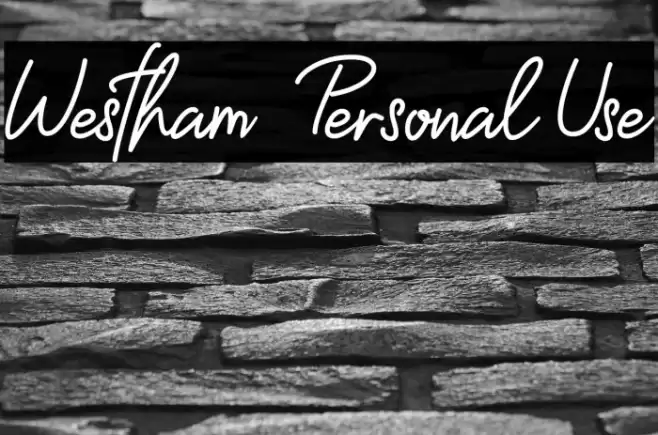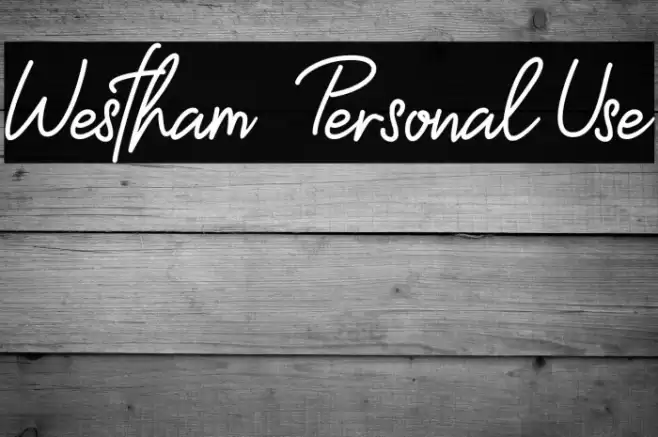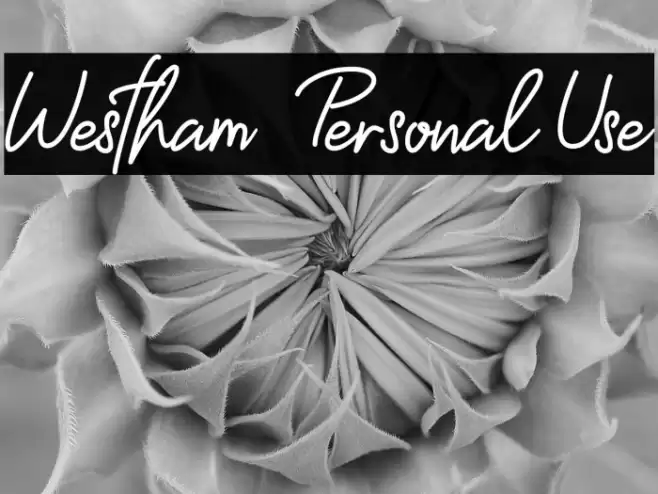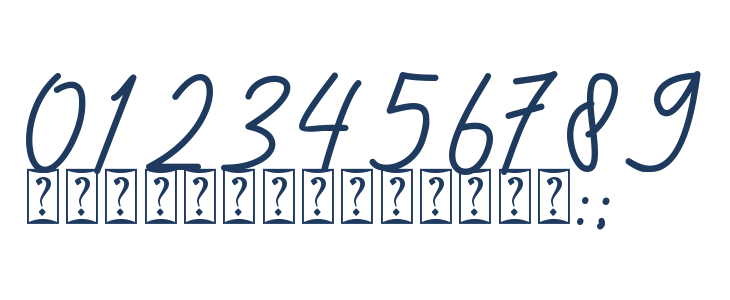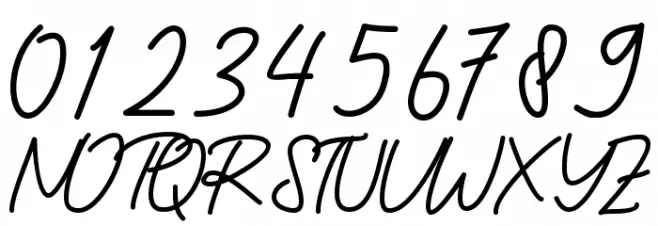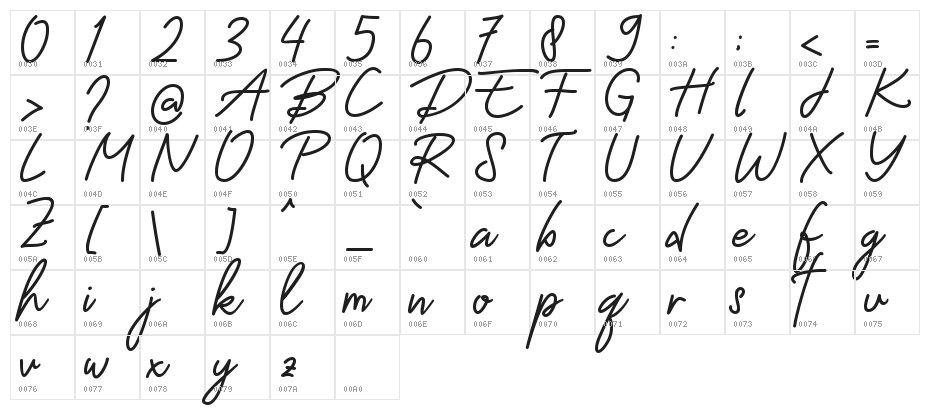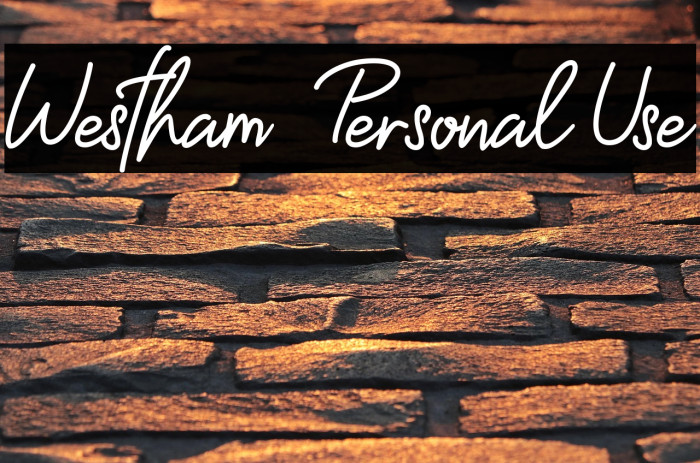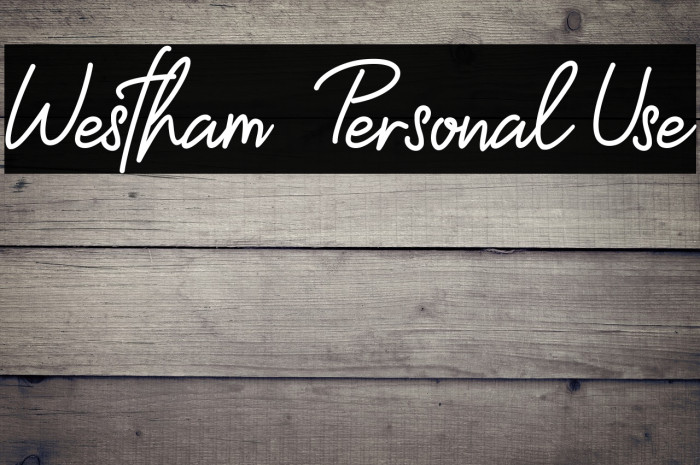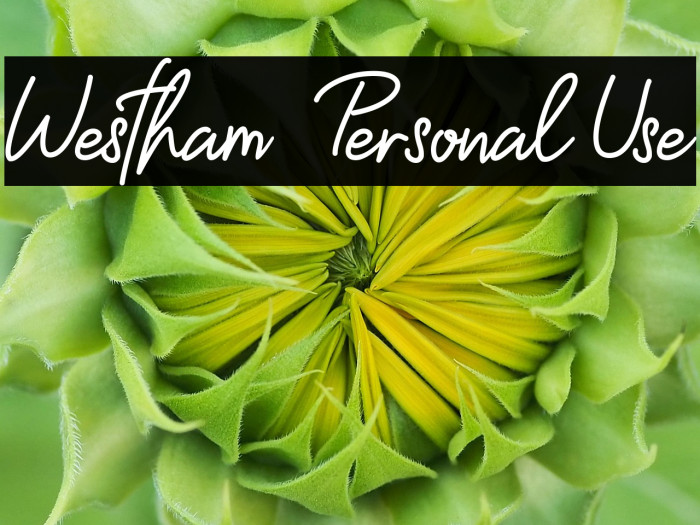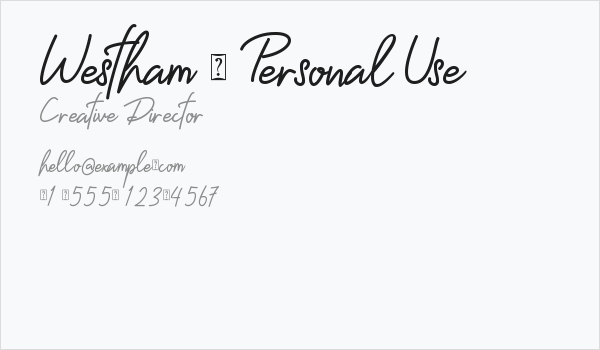
Westham - Personal Use Font
Westham - Personal Use Description
This font features a flowing, cursive style that mimics natural handwriting. The characters are connected, creating a seamless and elegant appearance. The strokes vary in thickness, adding a dynamic and lively feel to the text. The uppercase letters are slightly larger than the lowercase, maintaining a consistent flow throughout. Numbers and special characters are designed to match the overall script style, ensuring uniformity across all text elements. This font exudes a personal and informal charm, making it ideal for projects that require a touch of individuality and warmth.
A cursive, handwritten-style font with flowing, connected characters from Regular fonts.
- Proposed Projects: Ideal for personal invitations, greeting cards, branding, and social media graphics.
- Overall Style: Handwritten
- Use Case: Logos, Invitations, Personal projects